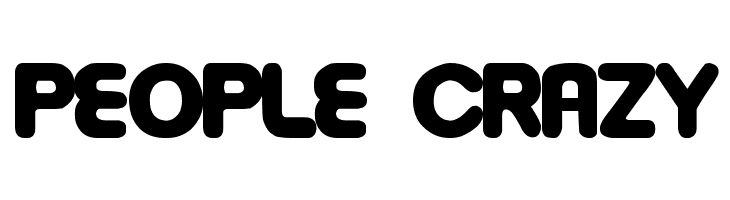
Wimp-Out Expanded Font
- Font: Wimp-Out Expanded
- Weight: Expanded
( Fonts by Kirk Shelton - www.kirkshelton.com )
A bold, rounded font with a modern and playful style.